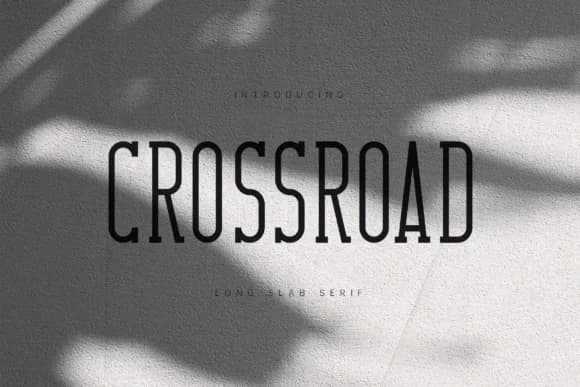
This typeface hits hard with rugged, no-nonsense character. Crossroad Slab, designed by vladfedotovv, is a rough-hewn slab serif that channels decades of American woodtype printing and worn saloon aesthetics from the Old West. The face carries visible wear marks and grain-like texture that feel purposeful, never arbitrary. It pairs the architectural weight of slab serifs with an honest, weathered finish that reads equally well at large headlines or in moderately sized text blocks. Despite its grit and intentional distressing, legibility stays strong across applications, letting you deploy it across craft beer labels, barbershop window signage, vintage merchandise packaging, and western-themed event posters without sacrificing readability.
The roughness serves the story. Each textured detail has work to do, making it less decorative nostalgia and more authentic voice for heritage brands. Smaller weights provide versatility across projects that demand personality without chaos. This is not a sterile modern serif type, it's a typeface built to announce itself and mean it.
Pair Crossroad Slab with a neutral, humanist sans-serif like a condensed grotesque for body copy, keeping the layout breathing while the slab serif does the heavy lifting. Find it on Creative Fabrica, where you can license it for branding work that has real character.
- Sturdy, Confident, American Vintage Font
Crossroad Slab Font is a slab serif font that shines as a display or heading face. Pair it with a clean sans-serif or serif font for body text β the contrast creates a clear hierarchy while the two styles stay balanced and easy to read.